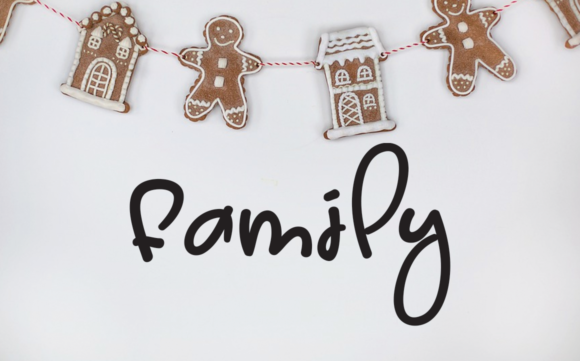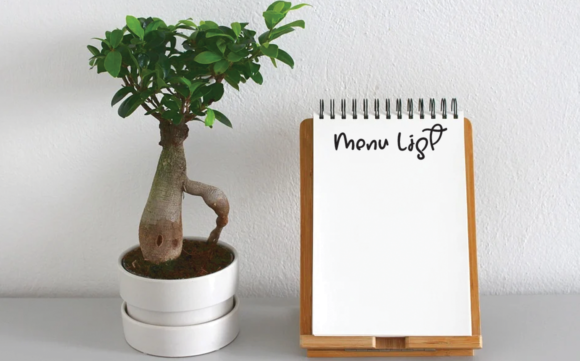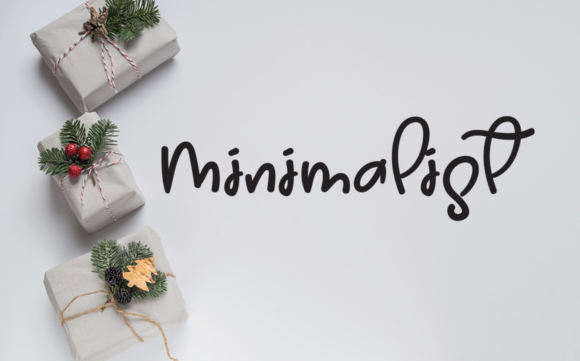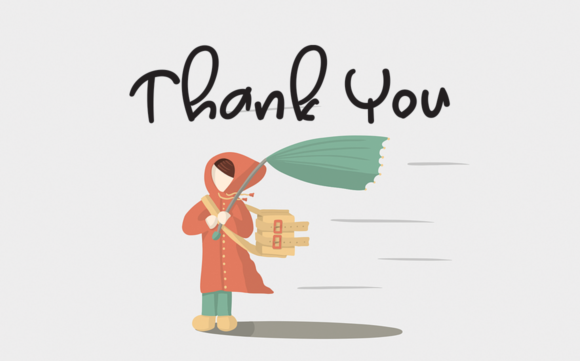
The Magic of Handwritten Fonts: Introducing Baby July Font
Have you ever been inspired by a single font to create something truly special? For designers, it’s a moment we all cherish – when a particular style sparks an idea and sets our creative juices flowing. It happened to me when I stumbled upon the enchanting Baby July Font. Its modern yet whimsical style instantly transported me to a world of endless possibilities.
This chic and quirky handwritten font is more than just a design element; it’s an invitation to immerse your designs in a magical world of wonder. With its unique flair, the Baby July Font is an invaluable asset for any designer looking to add a touch of personality to their work. Whether you’re crafting a brand identity, creating a wedding invitation, or designing a children’s book, this font is sure to bring a smile to your audience’s faces.
Baby July Font Key Features
- Font Style: Casual, Script
- Font Size: 20-40 points, scalable
- Unique Characteristics: Handwritten, cursive, and elegant, perfect for baby-related designs, invitations, and greeting cards
Designer Review: Baby July Font
Overall, the Baby July Font is a charming and modern script font. It’s perfect for creating a unique and eye-catching visual identity for your brand or design project.
- The font’s flowing connections between letters create a sense of elegance and sophistication.
- The varied letterforms and subtle imperfections give the font a handmade feel, which adds to its charm.
- The font’s x-height and stroke weight make it highly legible, even at small sizes.
- The font is highly customizable, with many OpenType features and ligatures available.
- The font may be too cursive for some design projects, particularly those requiring a more formal or traditional tone.
- The font’s connections between letters can sometimes be too loose, making it difficult to read at very small sizes.
- The font is not suitable for use in text that requires high contrast or bold typography.
Overall, I think the Baby July Font is a great choice for designers looking to add a touch of personality and whimsy to their work. While it may have some limitations, its unique charm and high customizability make it a valuable addition to any designer’s toolkit.
The Baby July Font is a beautiful, elegant script font perfect for:
- Baby shower invitations and decorations
- Any design project requiring a whimsical, handwritten touch
Remember to experiment with different font sizes, colors, and combinations to get the most out of the Baby July Font.
Alternatives to Baby July Font
Pacifico Font is a beautiful, elegant script font that is perfect for creating a warm and inviting atmosphere. It is ideal for use in logos, branding, and packaging design, particularly for businesses that offer luxury or high-end products.
Comparison to Baby July Font: Pacifico Font is more elegant and refined compared to Baby July Font. While Baby July Font is playful and cursive, Pacifico Font is more sophisticated and luxurious.
Great Vibes Font is a modern, cursive script font that is perfect for creating a fun and playful atmosphere. It is ideal for use in advertisements, social media graphics, and promotional materials, particularly for businesses that target a younger audience.
Comparison to Baby July Font: Great Vibes Font is more modern and edgy compared to Baby July Font. While Baby July Font is cute and childlike, Great Vibes Font is more trendy and hip.
Carolyna Pro Font is a beautiful, elegant script font that is perfect for creating a sophisticated and refined atmosphere. It is ideal for use in logos, branding, and packaging design, particularly for businesses that offer high-end or luxury products.
Comparison to Baby July Font: Carolyna Pro Font is more elegant and refined compared to Baby July Font. While Baby July Font is playful and cursive, Carolyna Pro Font is more sophisticated and luxurious.